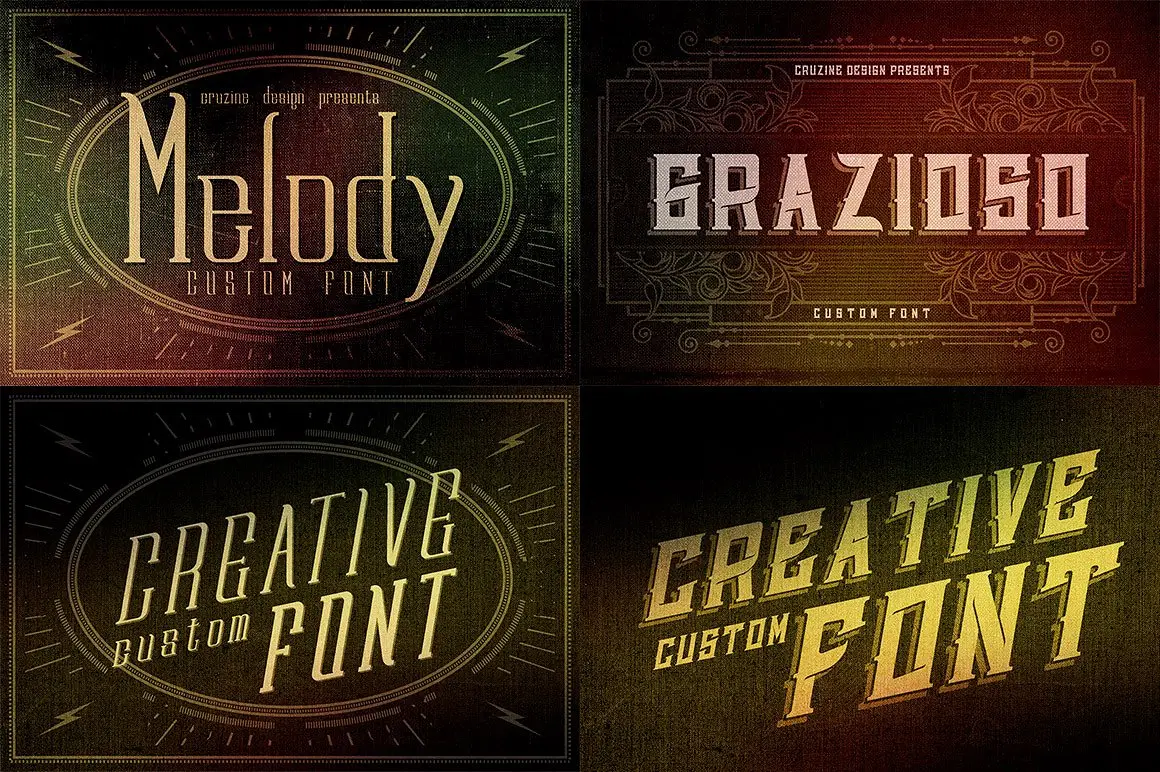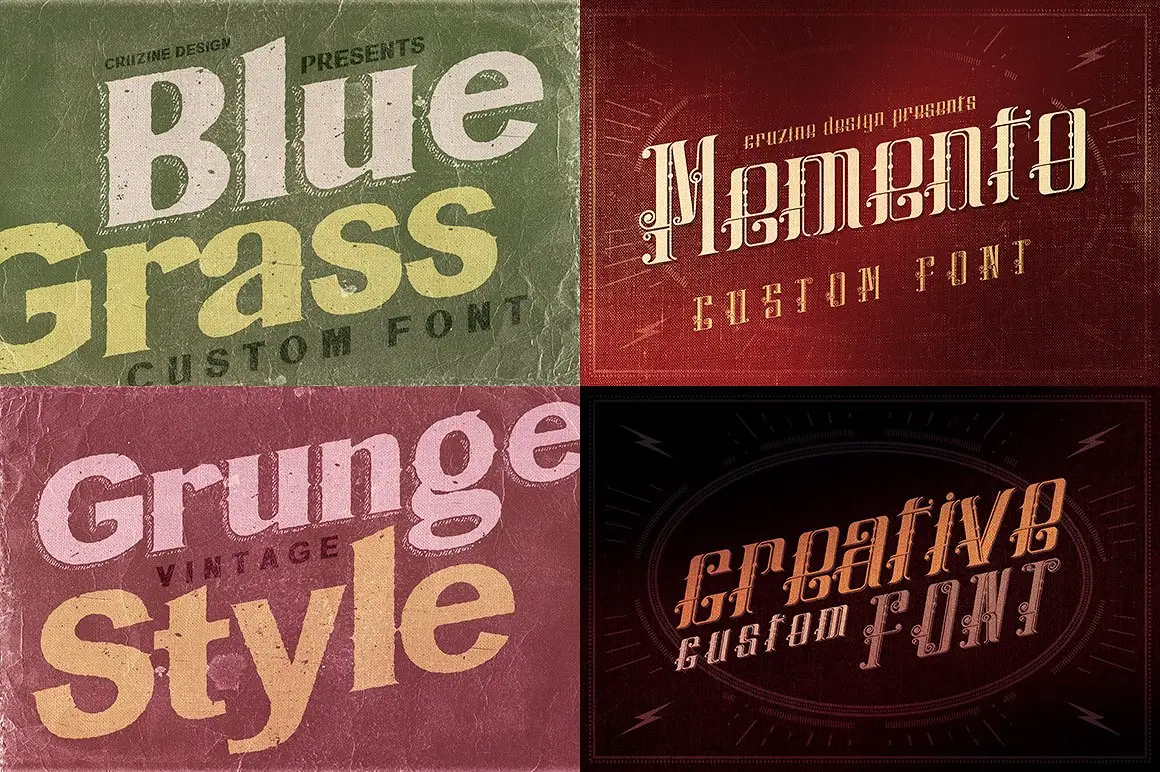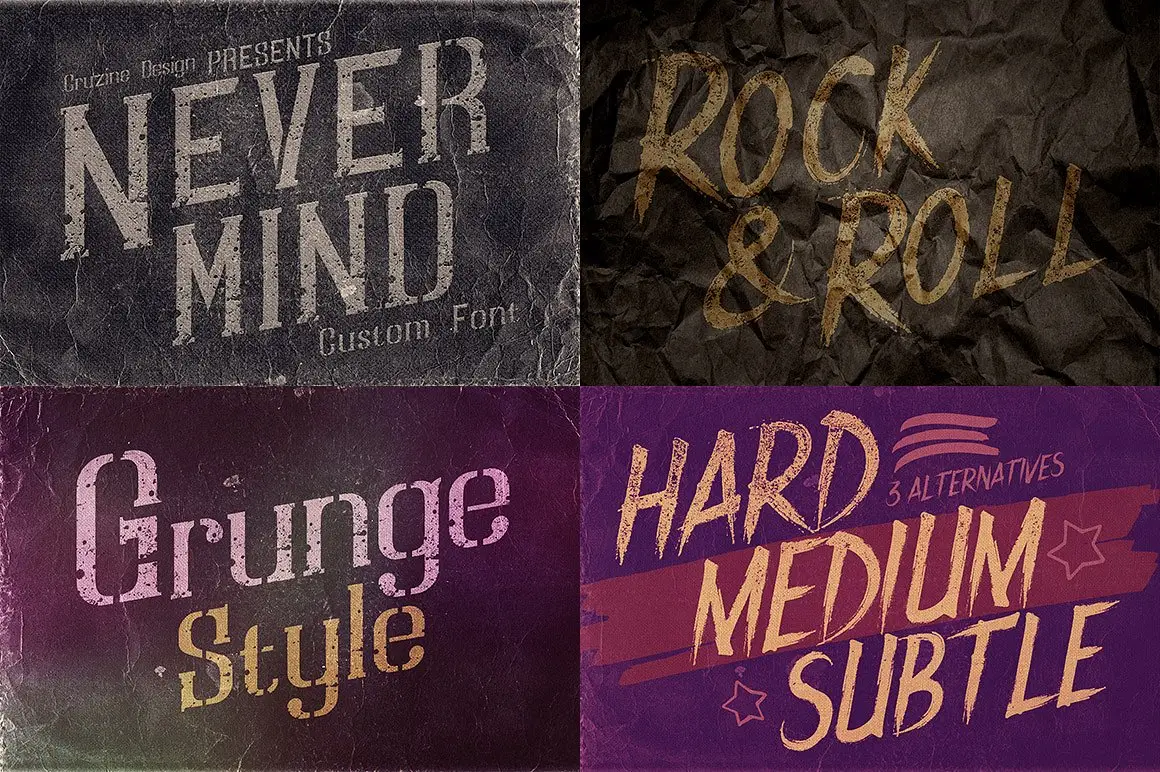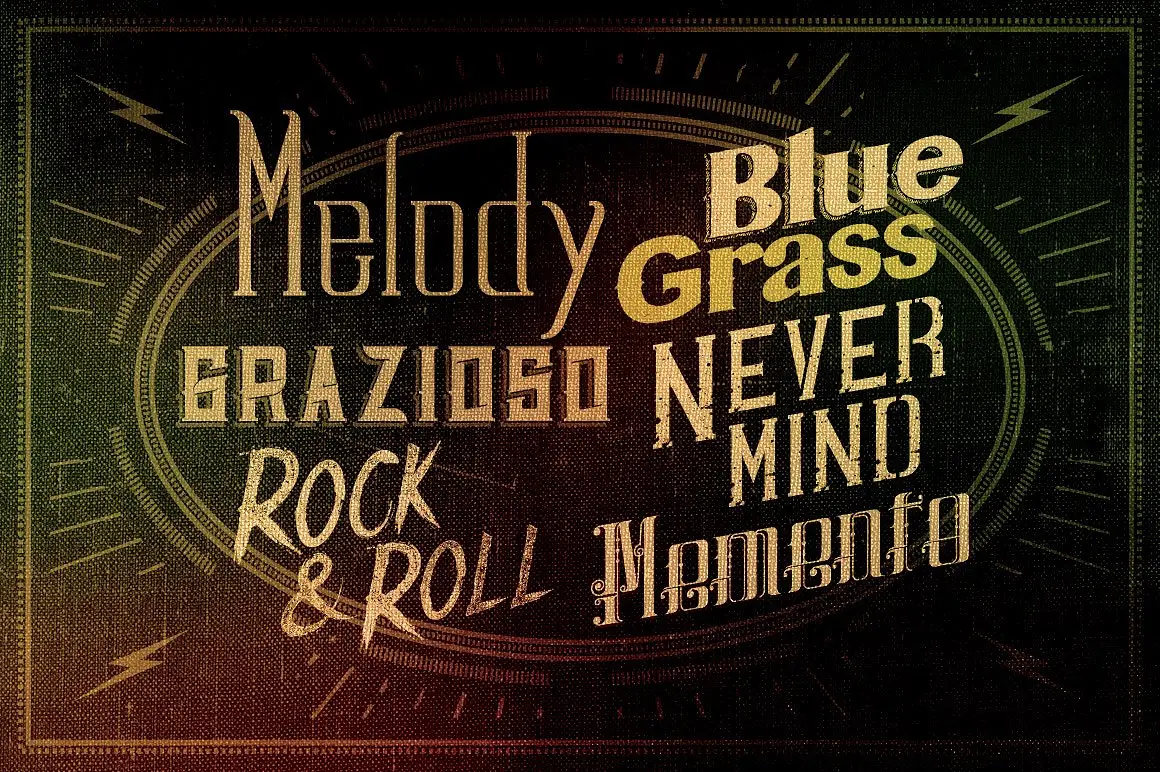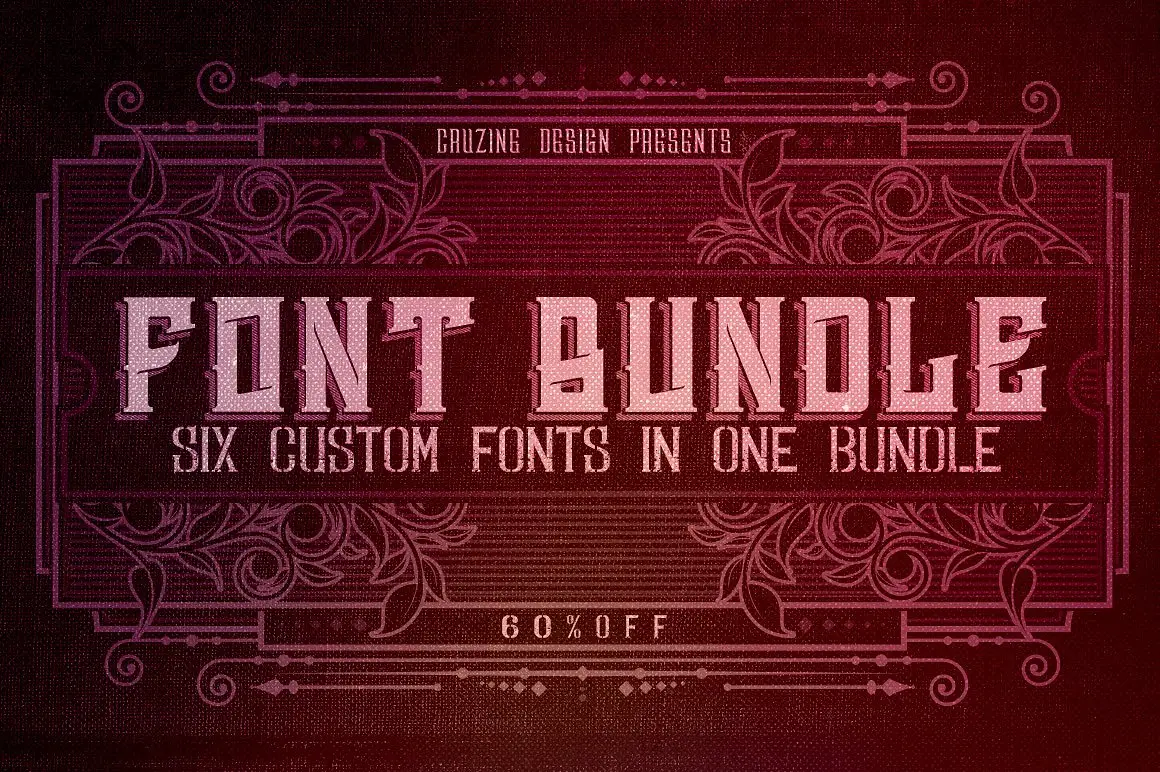
6 Creative unique custom fonts
Introducing a collection of 6 creative and unique custom fonts designed to elevate your projects. Each font offers a distinct personality, perfect for various applications including branding, logos, web design, print materials, and user interfaces.
• 6 distinct font styles
• Various weights for versatility
• Stylish and modern designs
• Easy to read and visually appealing
• Ideal for branding and logo design
• Great for web typography and print layouts
• Use in UI design for a modern touch